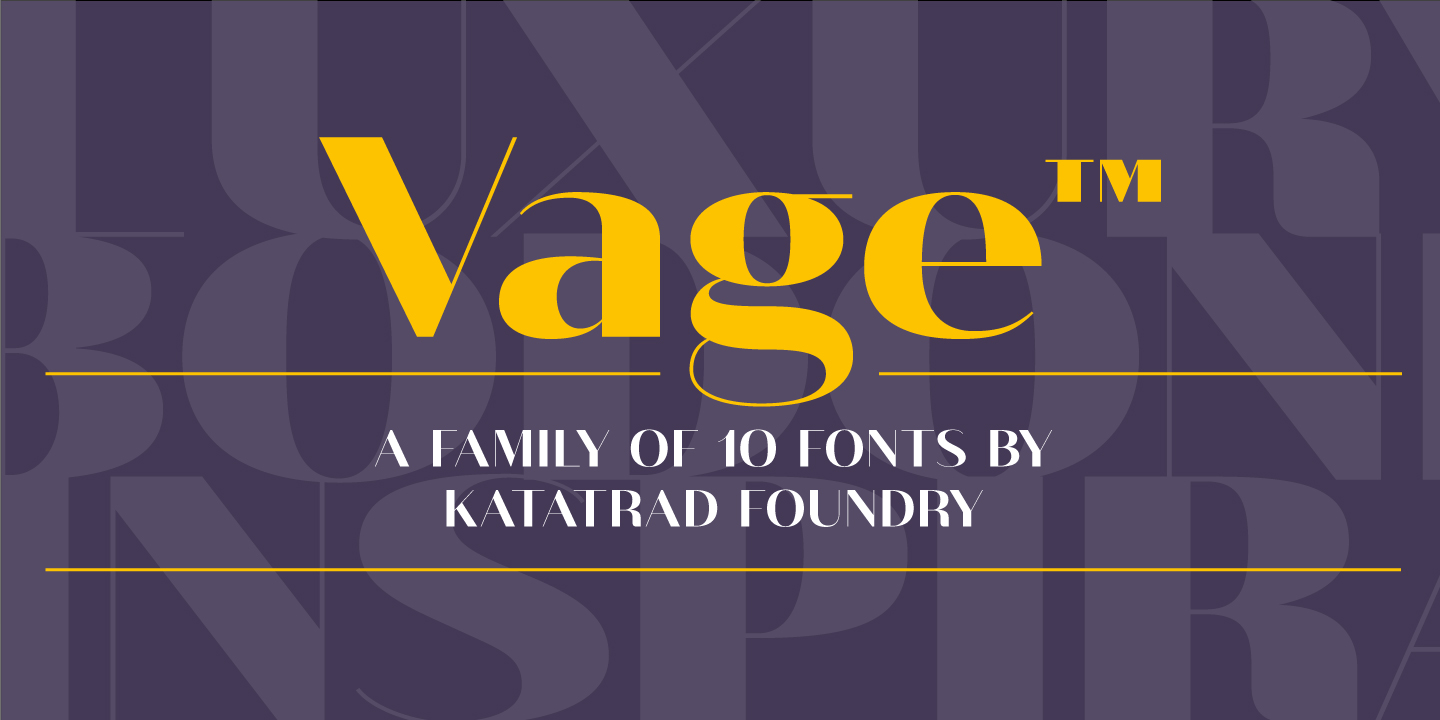
This modern typeface is an excellent choice for projects demanding a clean, geometric, and contemporary aesthetic with a subtle touch of elegance. Imagine it defining the core branding for tech startups, providing crisp readability for digital publications, or adding a sophisticated edge to minimalist design portfolios. Vage Font is also perfectly suited for designing sleek website interfaces, crafting impactful logos for forward-thinking businesses, or creating compelling headlines for fashion and lifestyle magazines. Its balanced proportions and refined simplicity make it an ideal option for any design seeking to convey innovation, clarity, and an effortlessly modern sensibility, such as app UIs, architectural firm branding, or high-end product packaging.
What makes Vage Font so exciting? It strikes a harmonious balance between strict geometry and subtle humanistic touches, resulting in a highly versatile and appealing design. The clear, open letterforms ensure exceptional legibility across various sizes and mediums, from large display text to smaller body copy. This font doesn’t just present information; it organizes it with an inherent sense of order and sophisticated restraint. It’s engineered to perform exceptionally well in both print and digital environments, ensuring your message is always delivered with precision and a refined contemporary feel. The inherent clarity and adaptable nature of its character shapes make it particularly effective for brands that champion efficiency, modern aesthetics, and a universally appealing, professional identity.
The Vage Font family typically offers a comprehensive range of weights and styles, providing extensive flexibility for designers to build sophisticated and consistent typographic systems. You can expect to find a broad spectrum of options, including Thin, Light, Regular, Medium, Bold, and perhaps even an Extra Bold or Black weight, often with corresponding italic versions. Each weight is meticulously designed to maintain the font's core characteristics while offering distinct visual impacts, allowing for nuanced typographic hierarchies. These variations enable designers to create well-structured and highly functional text layouts, effectively differentiating between headlines, subheadings, and body text with elegance and precision. The extensive family ensures that Vage Font can be the singular typeface for an entire brand system, guaranteeing visual consistency and a polished, contemporary appearance across all mediums.
Whether you're developing a cutting-edge digital platform, building a new corporate identity, or simply need a typeface that speaks with modern elegance and understated impact, Vage Font Free Download is an exceptional choice. Its refined design and broad versatility will ensure your message is always delivered with utmost clarity and sophisticated purpose.